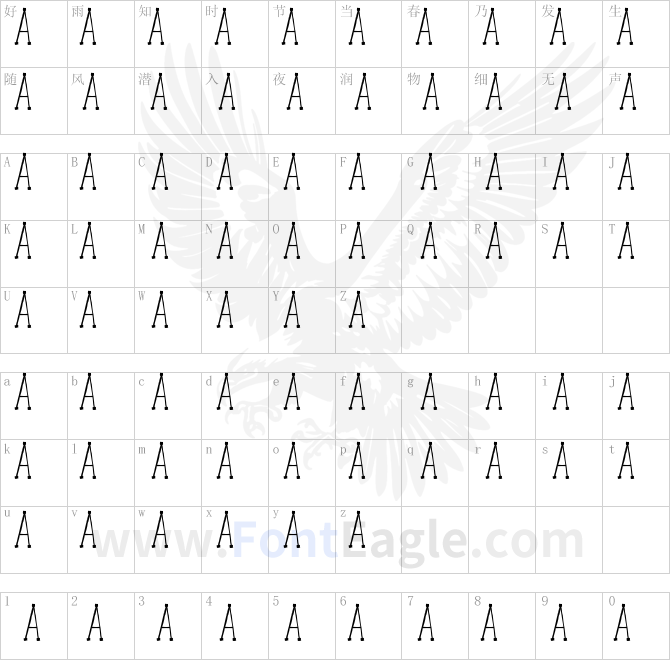
Serendipity is a great font, widely used in graphic design, single-page menu design, poster design and other fields, and is deeply loved by designers.Serendipity download.